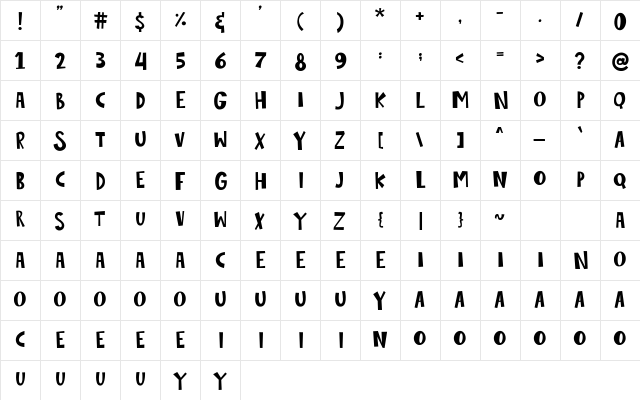
Sasha Play Regular
| Foundry | TKK Studio |
| Designer | Iman |
Design Context for Sasha Play Typeface
Sasha Play is a composed and adaptable typeface that performs quietly and consistently across a wide range of design contexts.